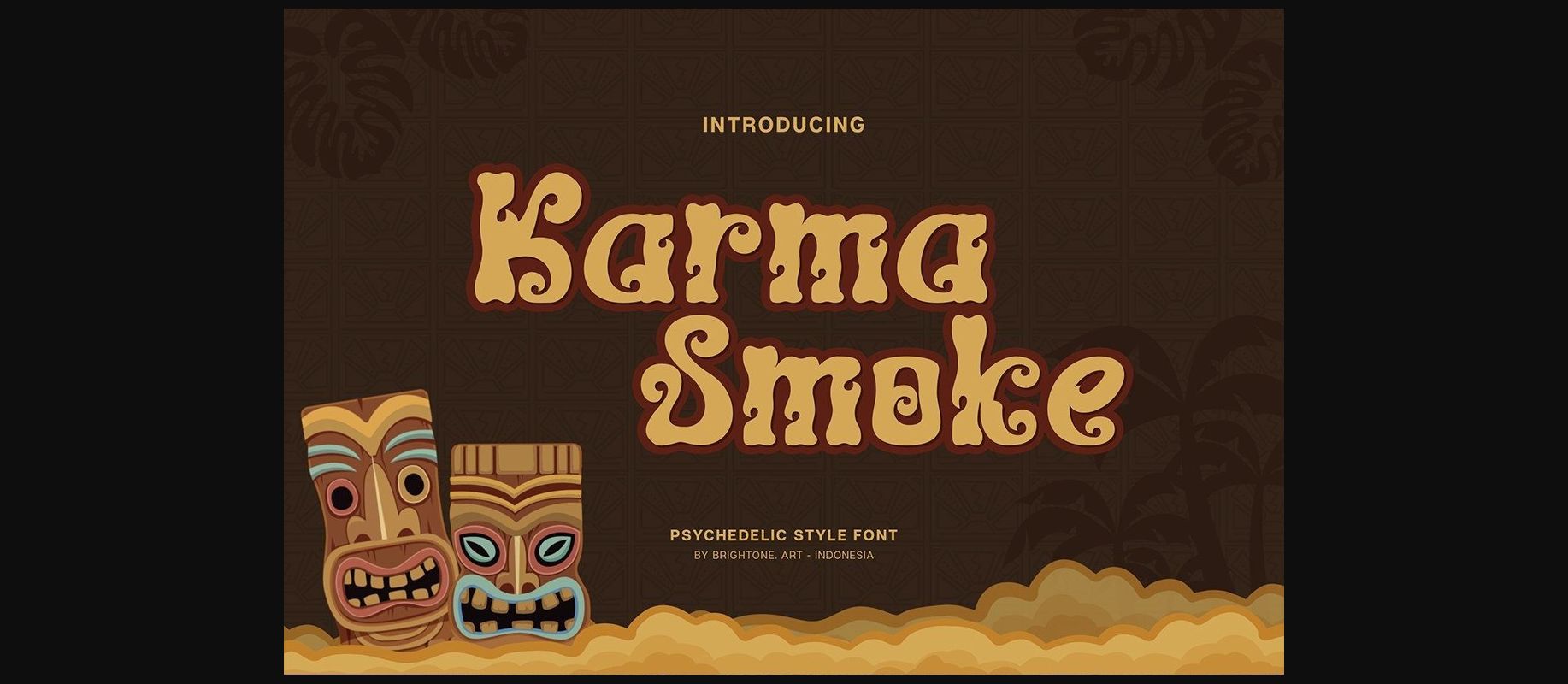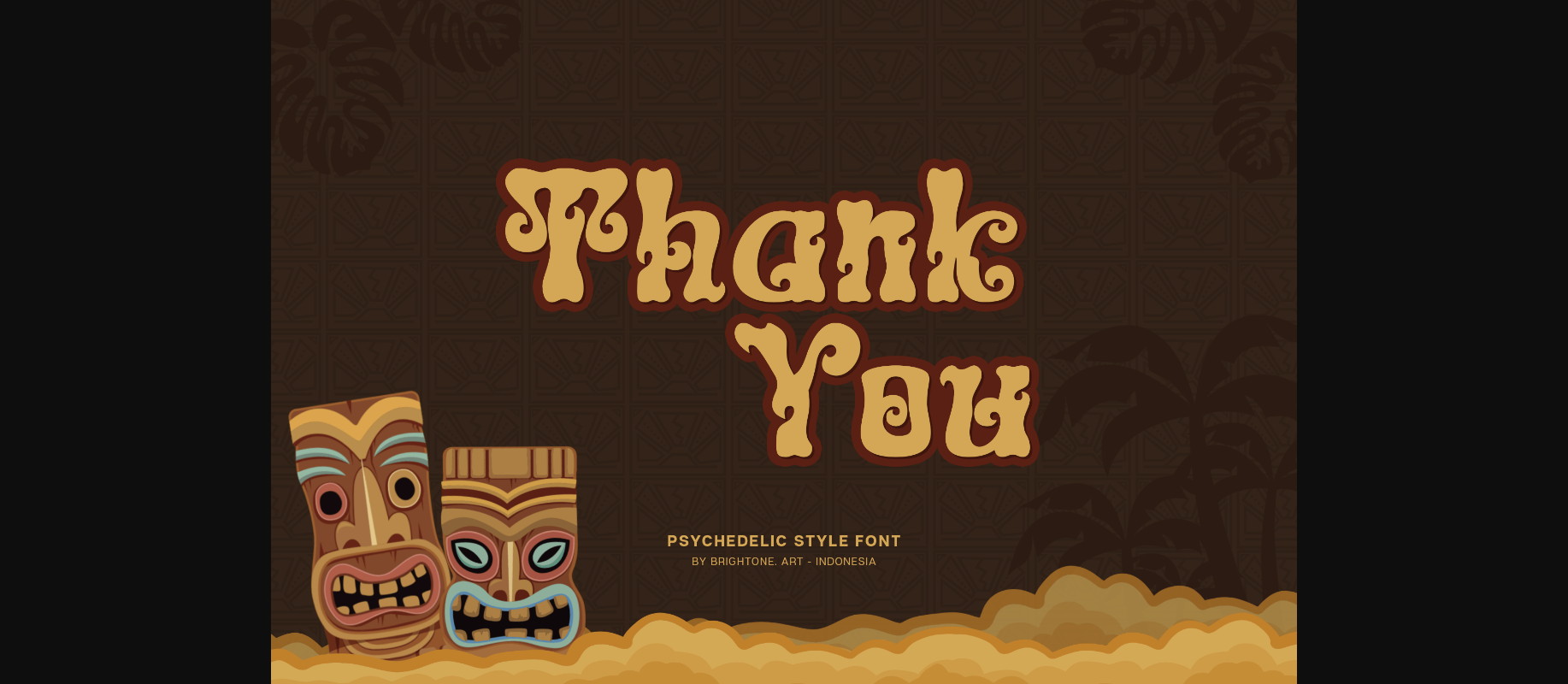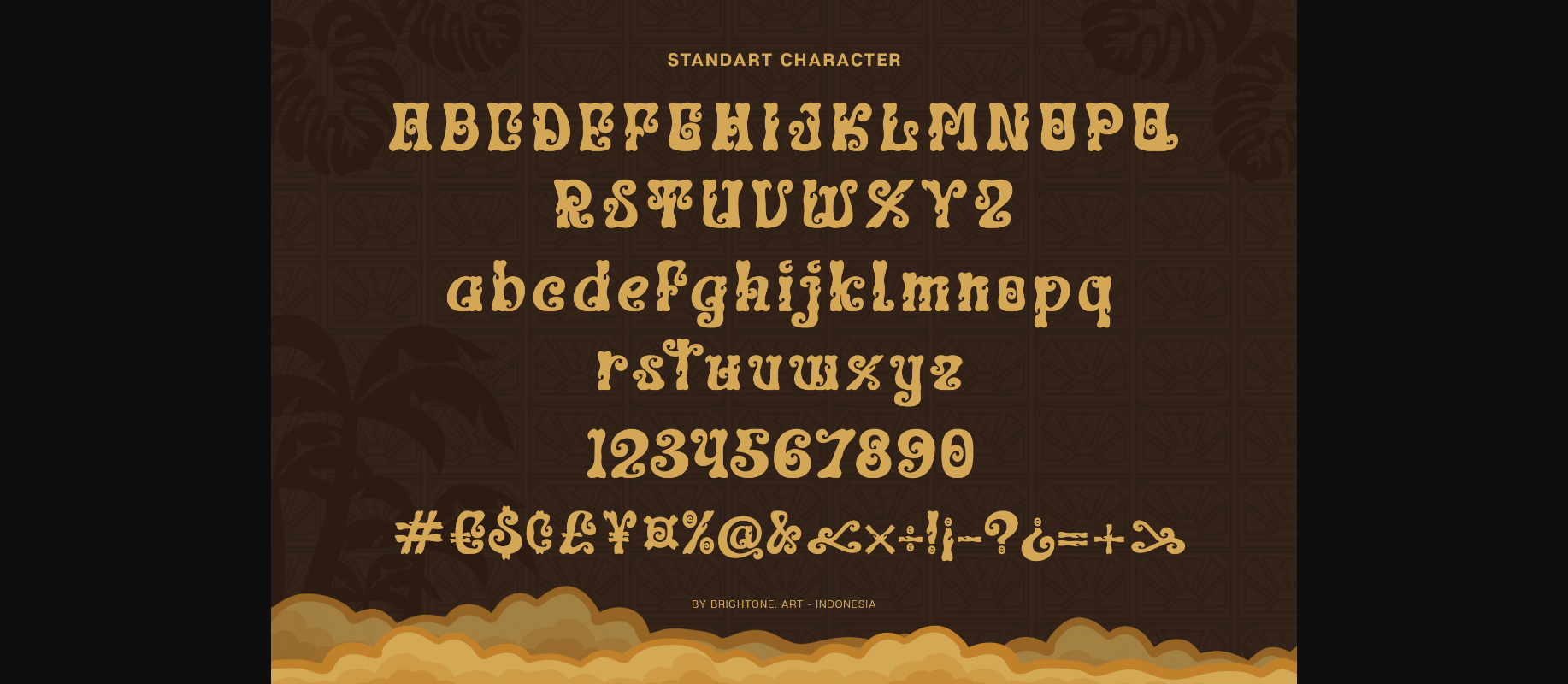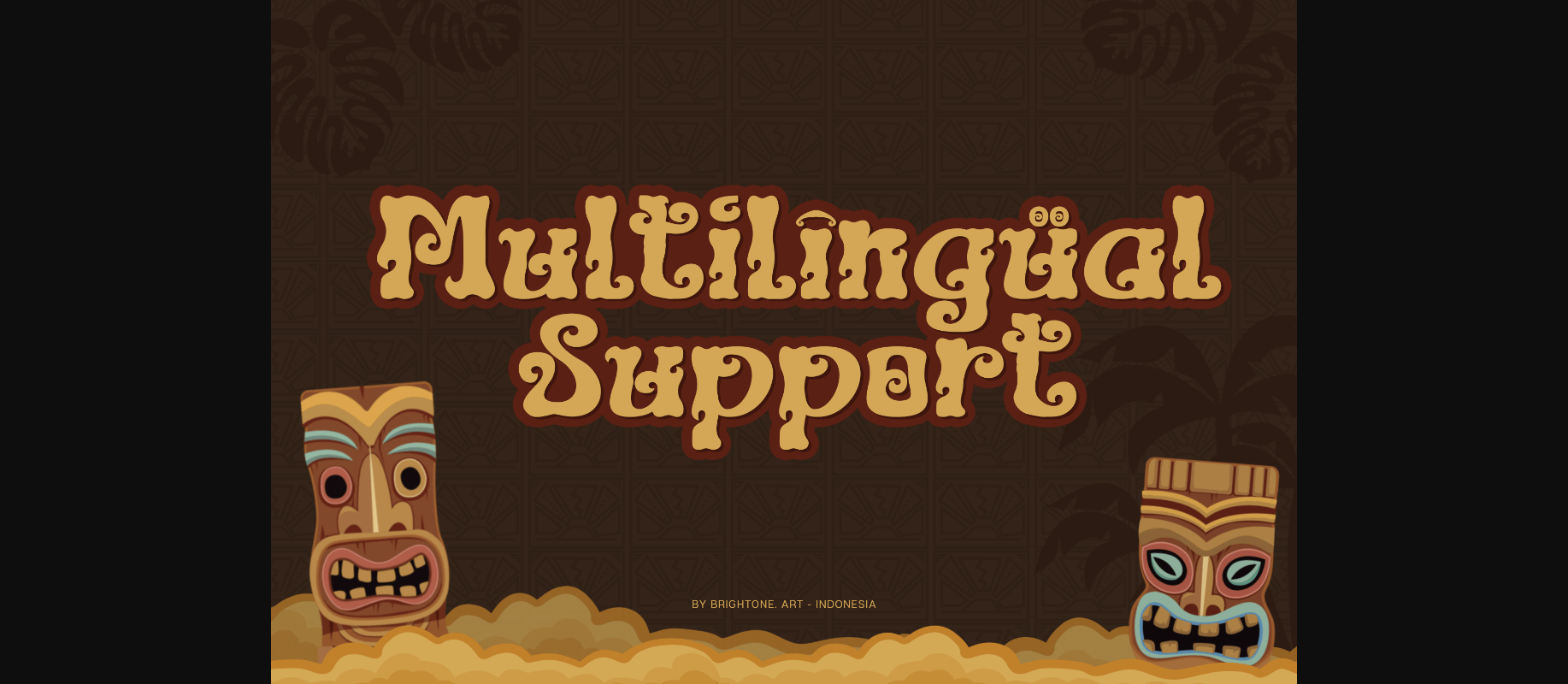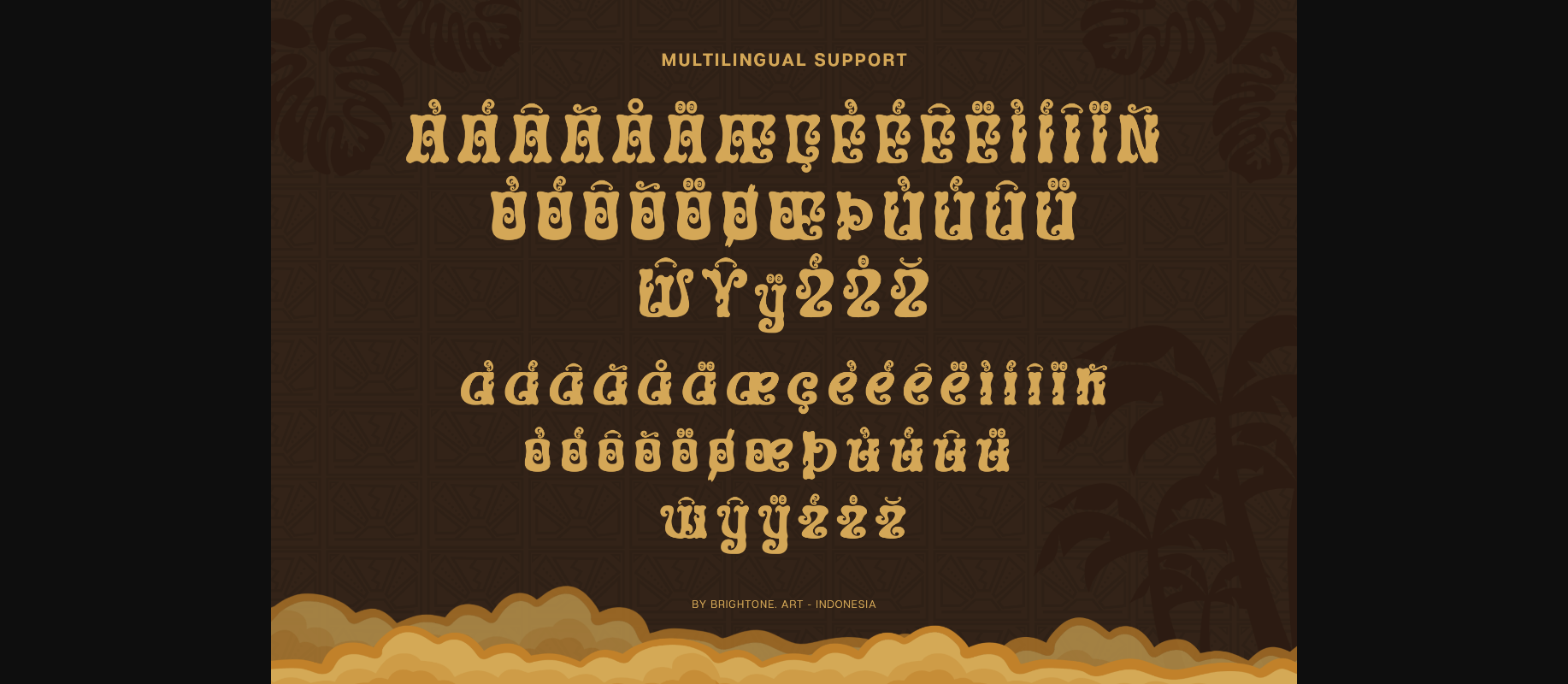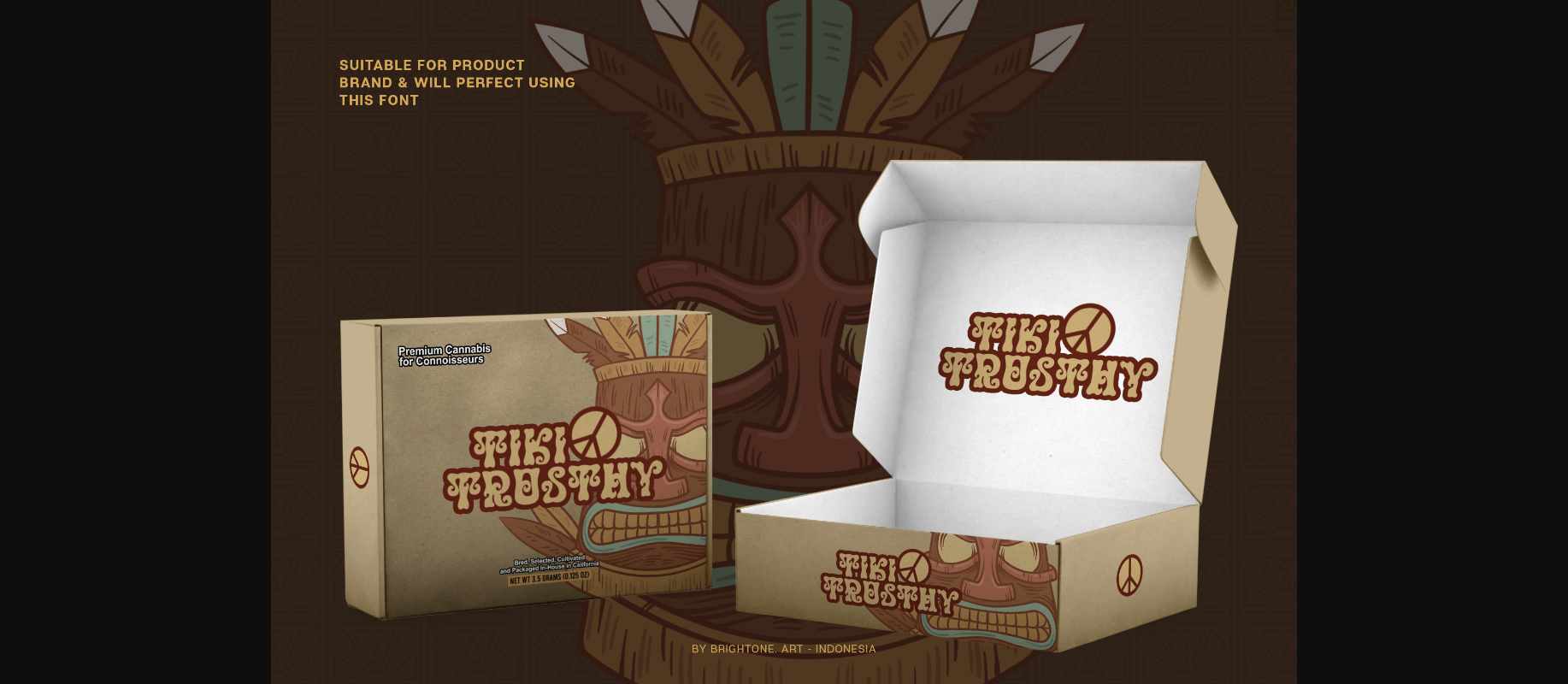
About Karma Smoke Font
Karma Smoke is a psychedelic decorative font with good style and unique touch.
Karma Smoke font is suitable for all your logo lettering, logos, labels, packaging, stickers, and branding purposes.